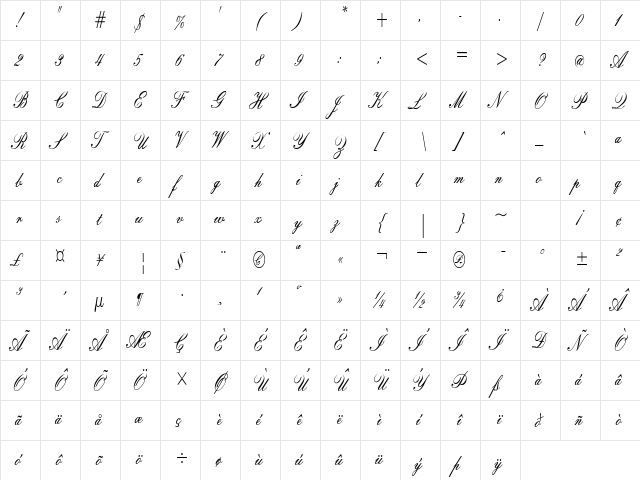
EmpireScriptCondensed Regular
Design Context for EmpireScriptCondensed Typeface
EmpireScriptCondensed brings a calligraphic fluidity to the page — its connecting strokes and expressive curves give it an unmistakably human quality.
Font Pairing: Combine EmpireScriptCondensed with a simple geometric sans for maximum contrast — the tension between flowing curves and clean structure is a classic typographic pairing.
Pro Tip: Use EmpireScriptCondensed for short runs of text — names, titles, or taglines. Extended body copy in script faces tires the eye quickly.